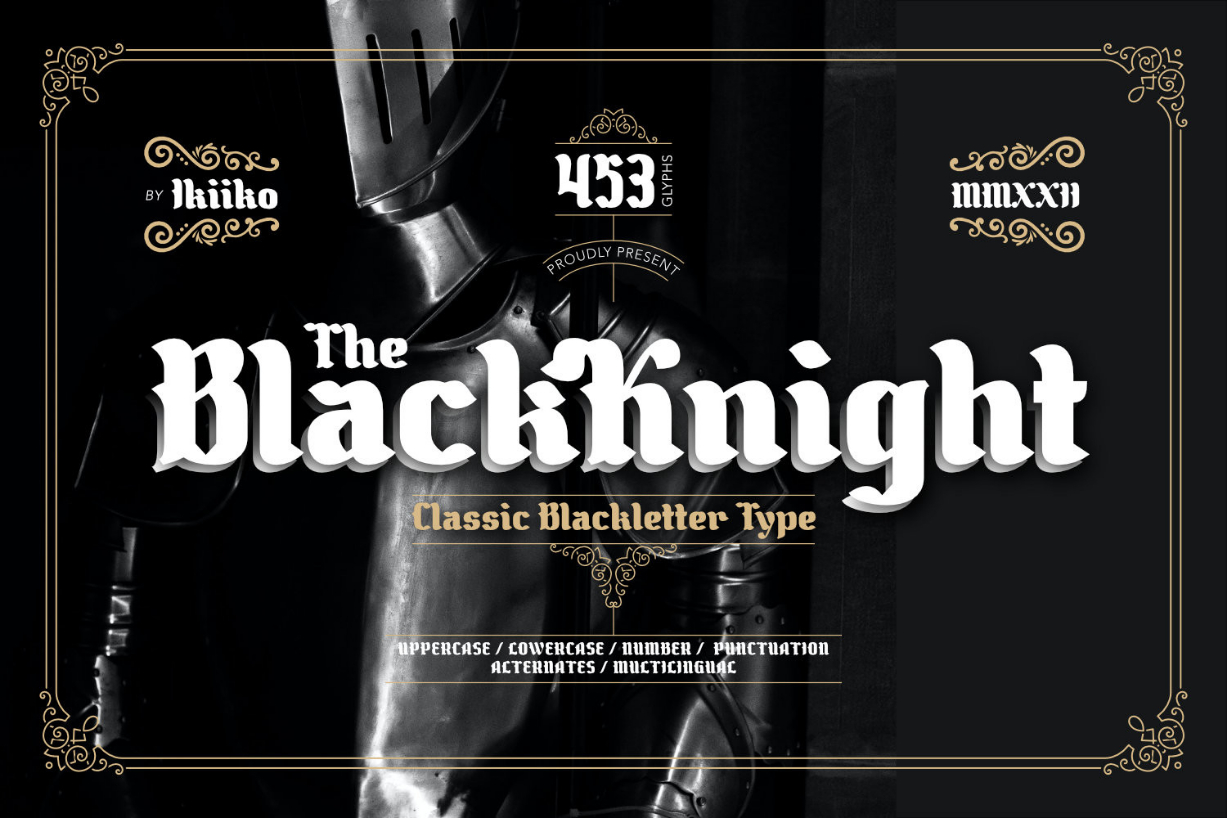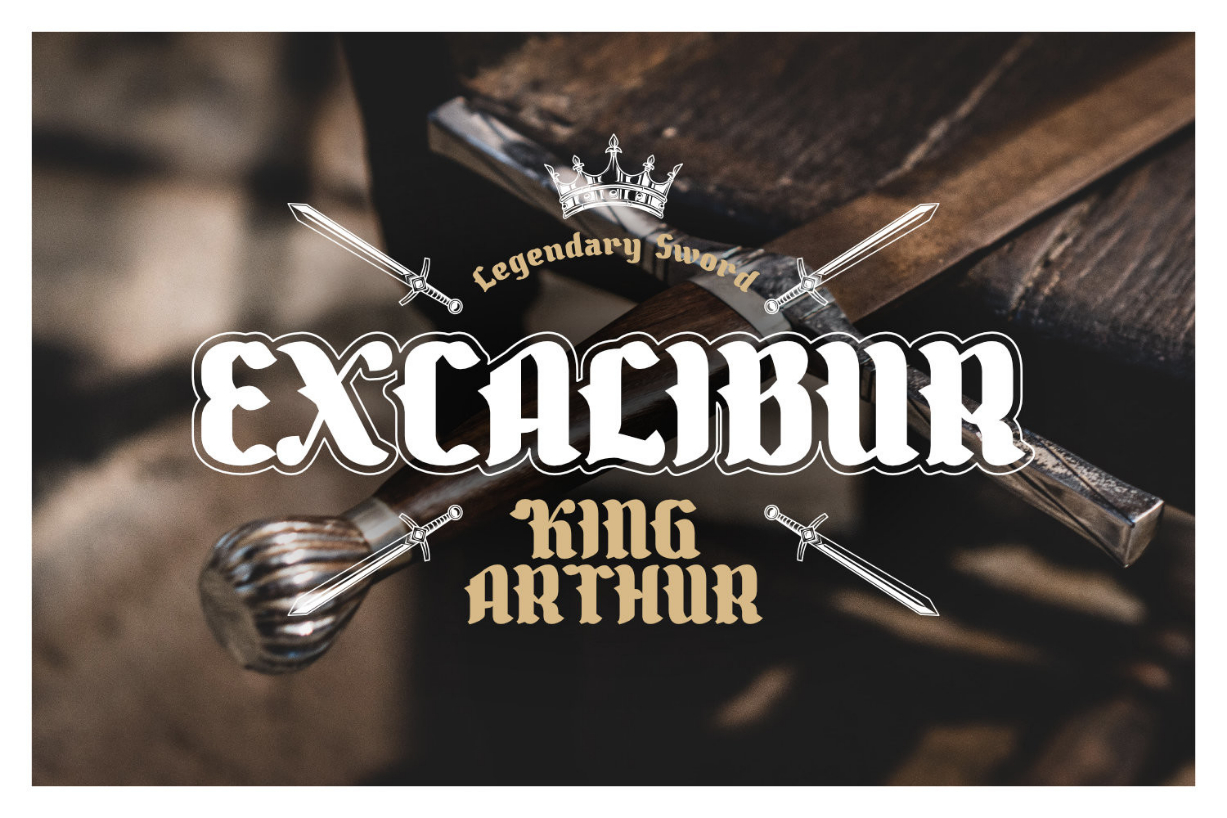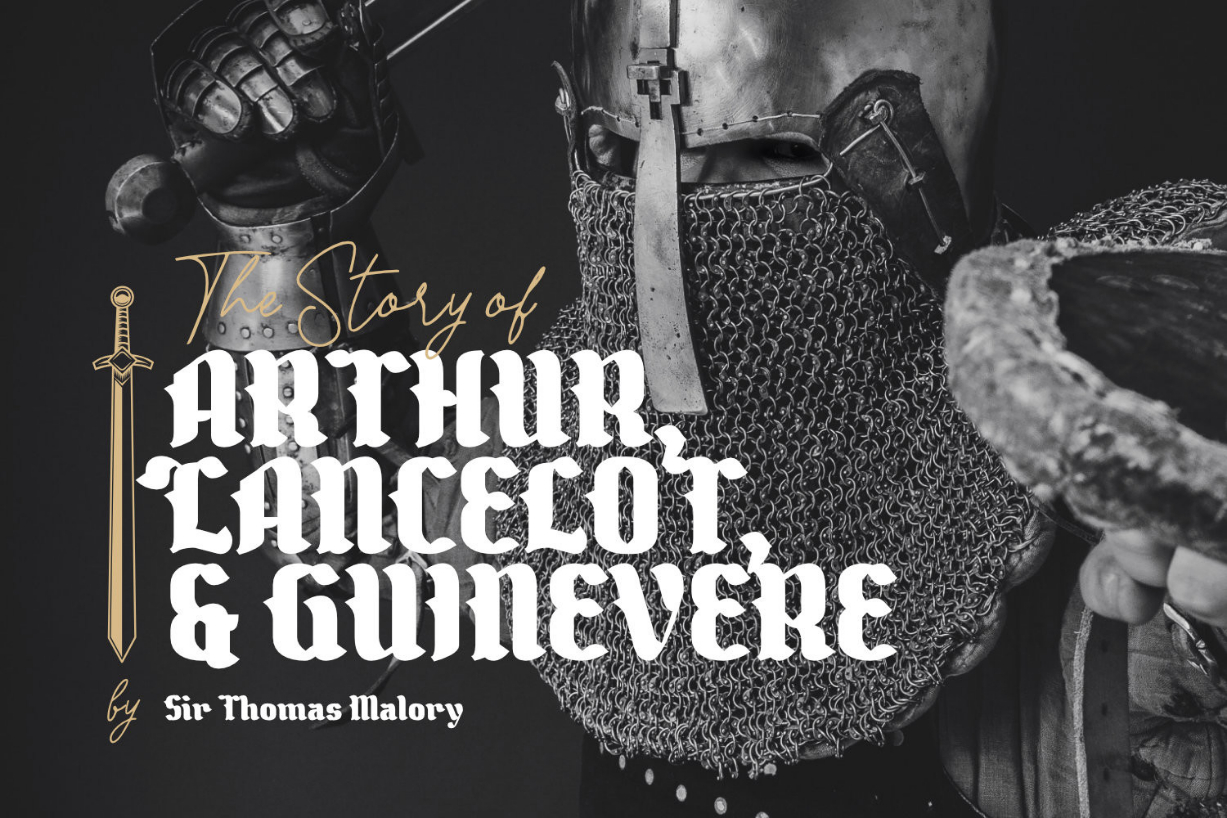
About The Black Knight Font
The Black Knight is inspired by the typeface in the era of the old European Empire, with a lettering style but with a modern touch. The Black Knight has several choices of unique letter alternates as in classic writing. This font is PUA encoded which means you can access all of the glyphs and swashes with ease.